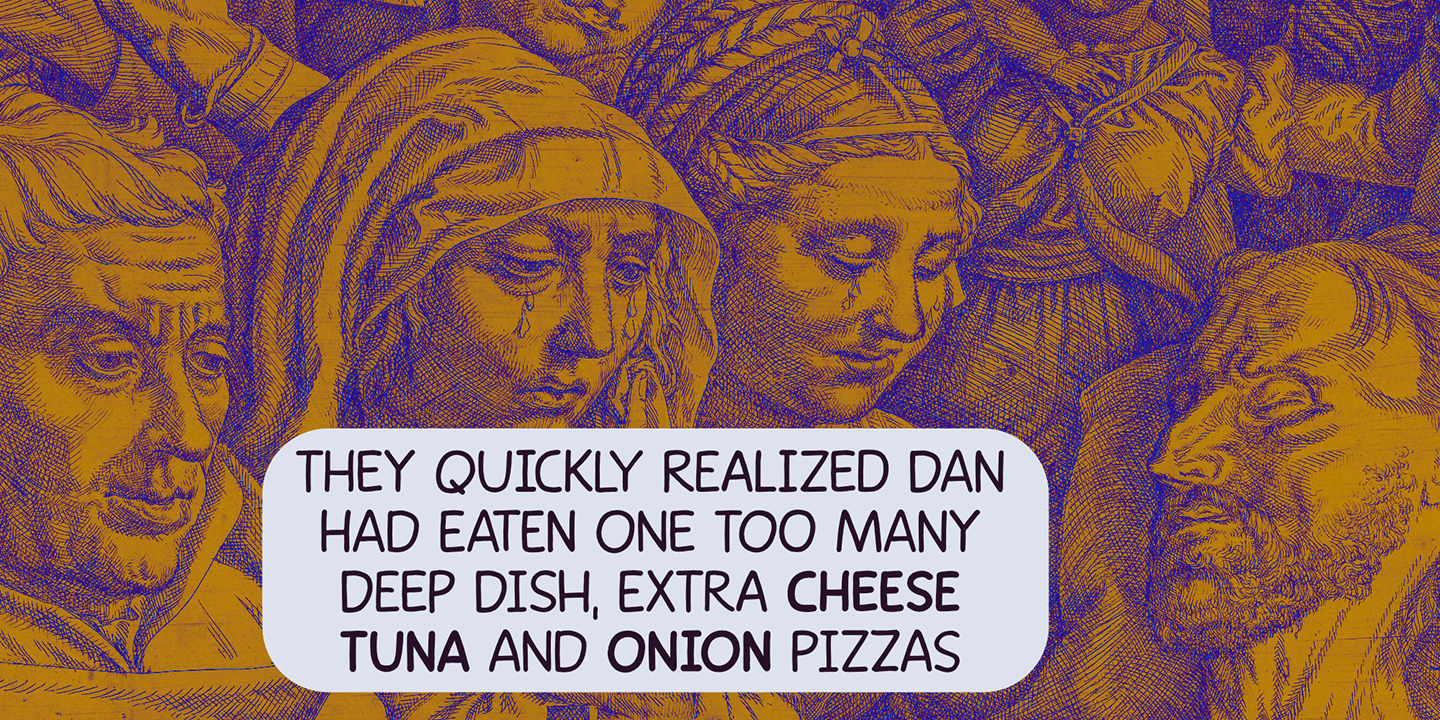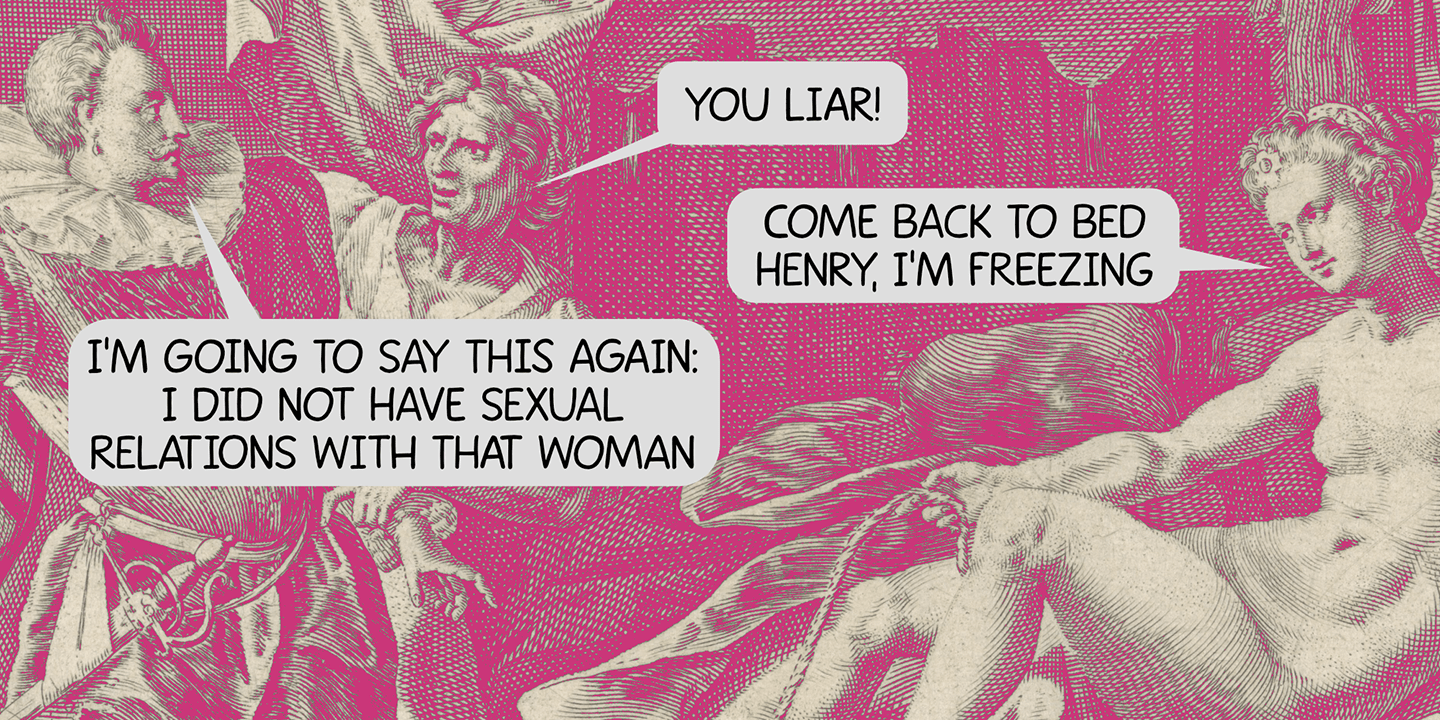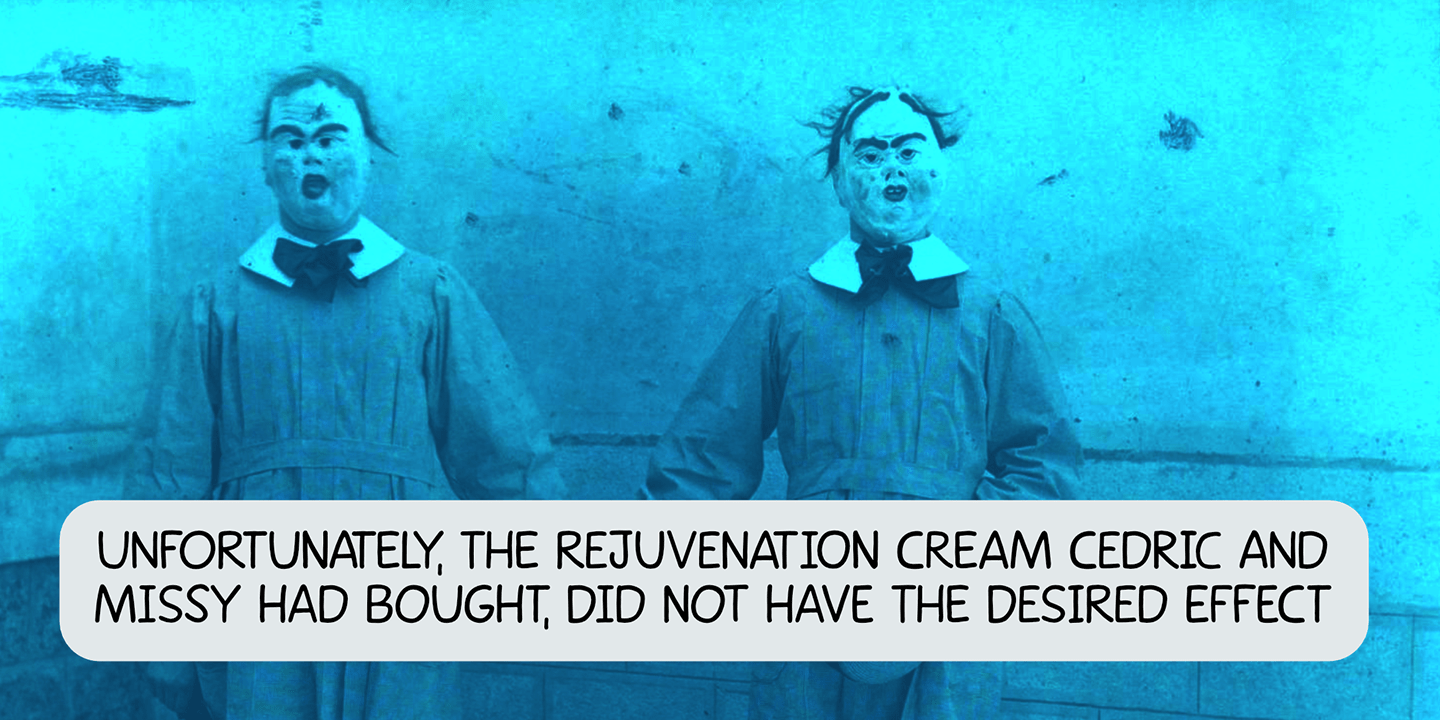
About Mint Condition
My kids like to read Donald Duck magazine. They have boxes full of old editions that we bought second hand. Most of the comics are well-used, but there are some in near mint condition. I thought it would be nice to create a font that mimics the lettering…